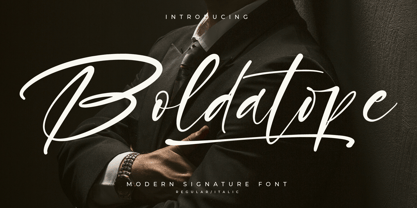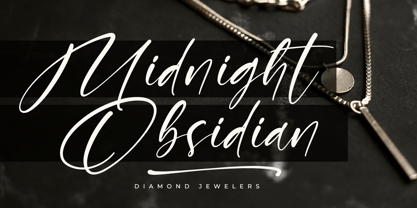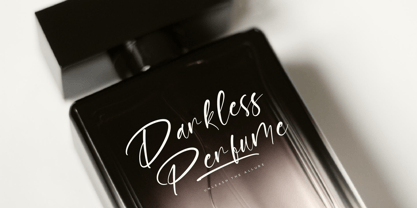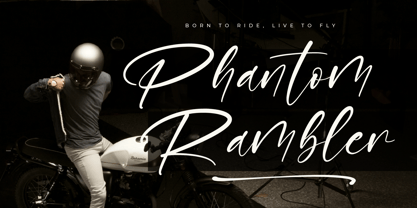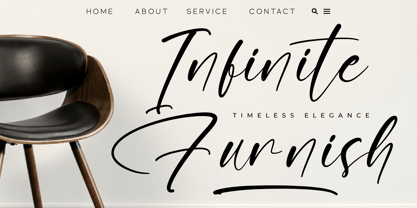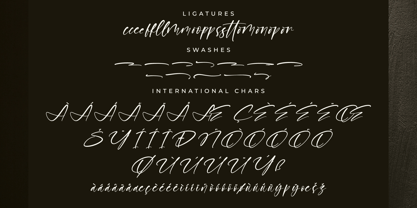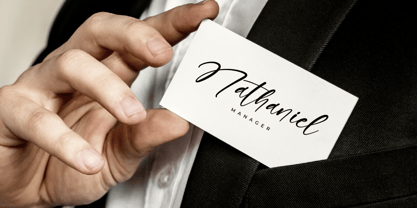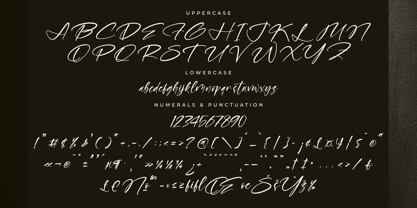
Boldatope
by Letterena Studios
The Boldatope Font Family was designed by Heru Utama Putra and published by Letterena Studios. Boldatope contains 1 styles. More about this family
Boldatope – Modern Signature Font , from Letterena, is a Luxury Script font, suitable for any projects such as: logos, branding projects, homeware designs, product packaging, mugs, quotes, posters, shopping bags, t-shirts, book covers, name card, invitation cards, greeting cards, label, photography, watermark, special events, and all your other luxury and beautiful projects that need a Luxury serif taste.